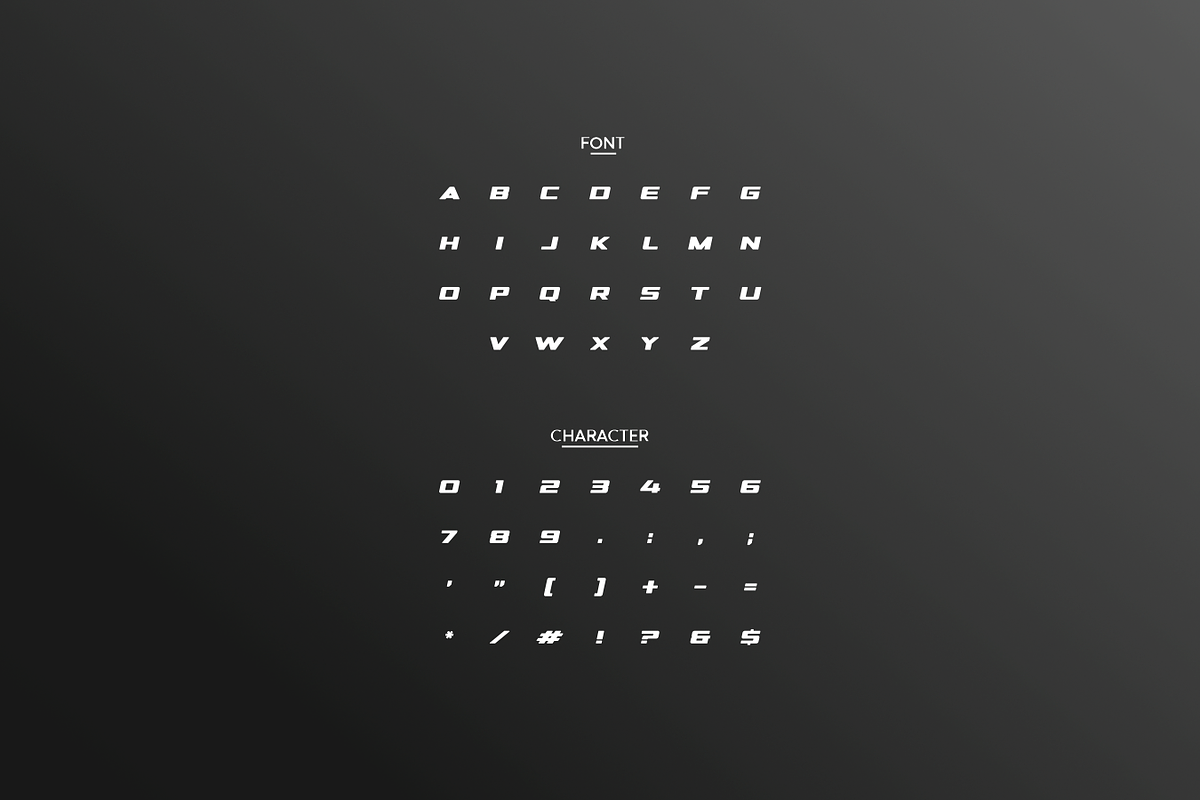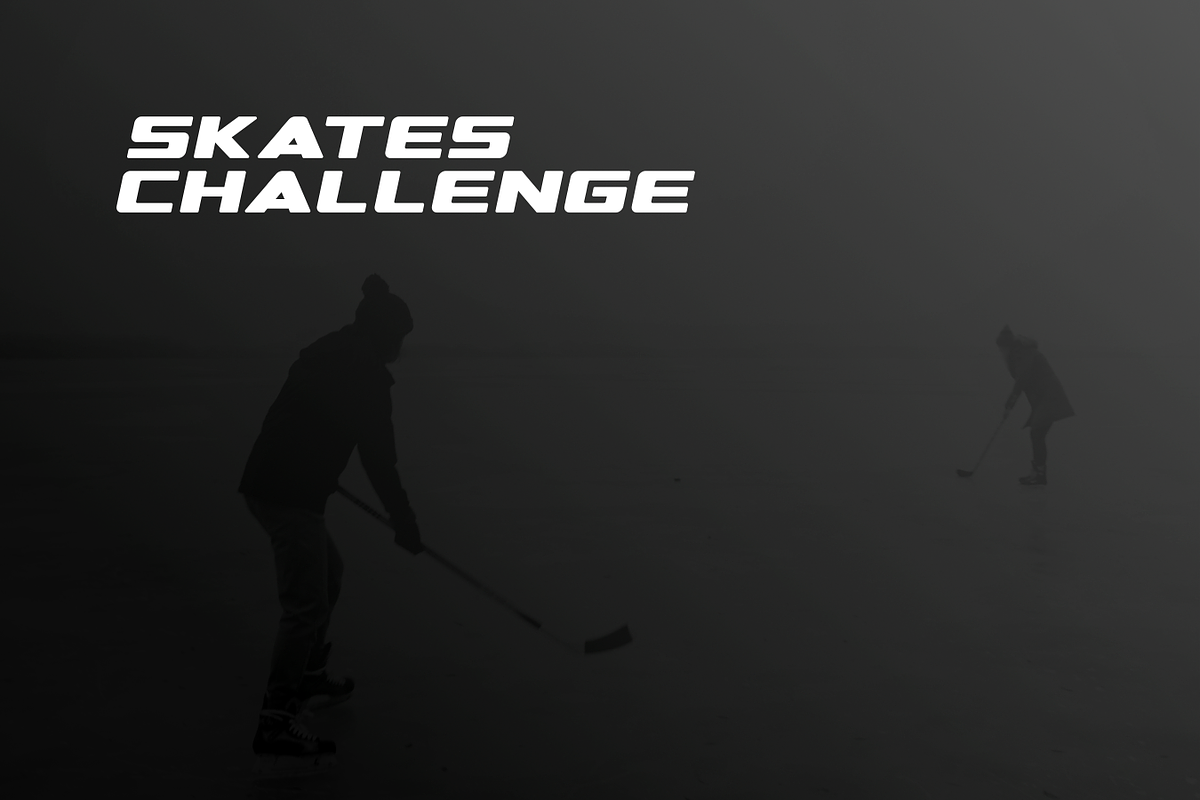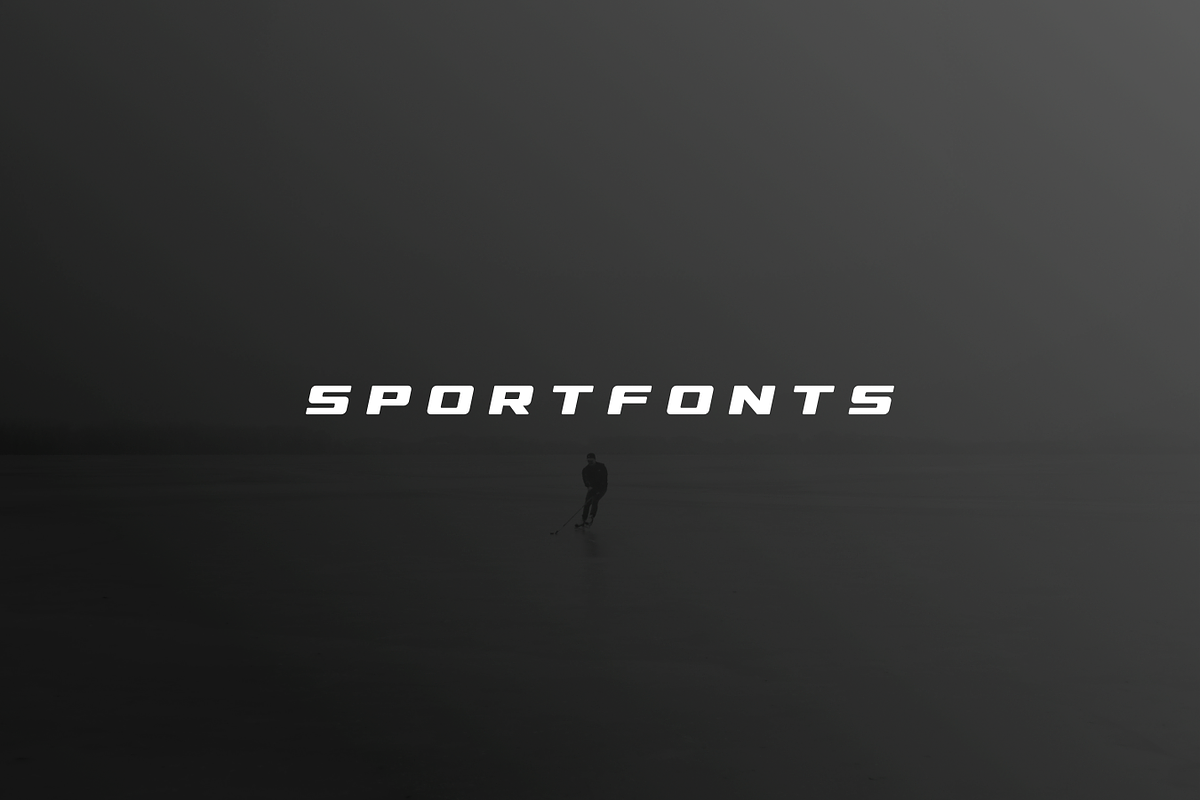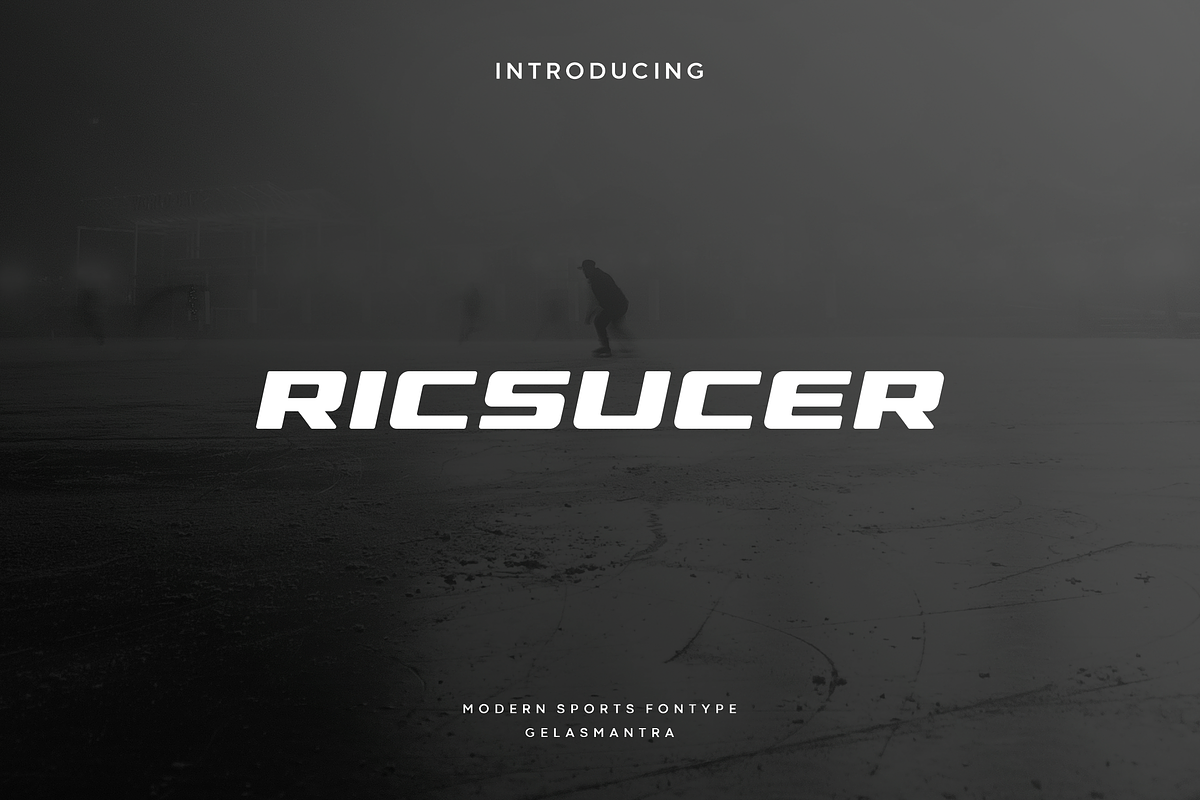
Ricsucer
Ricsucer sports font with high italic font, modern look, and dynamic slant. Ideal for fast car racing sports titles, logo, running matches, cycling, automotive game logos and other modern dynamic monograms or texts. Ricsucer brings the feel of ink splattering at an angle, creating an effect of power and speed. Designed as a fast and dynamic font, but with a slightly different font design the added rough fill makes it a bit dirty but more masculine.